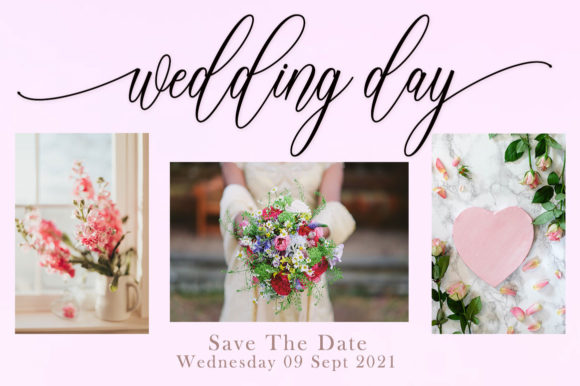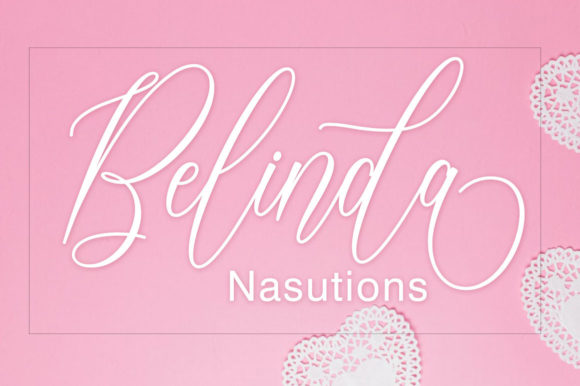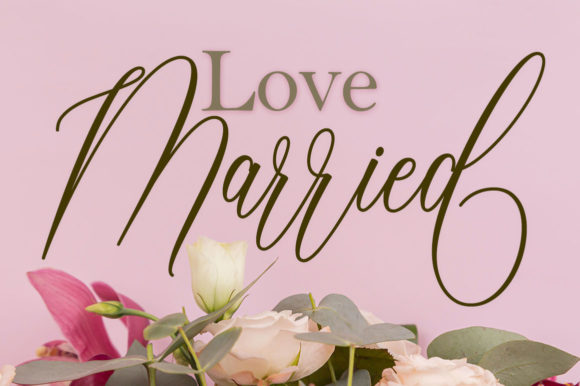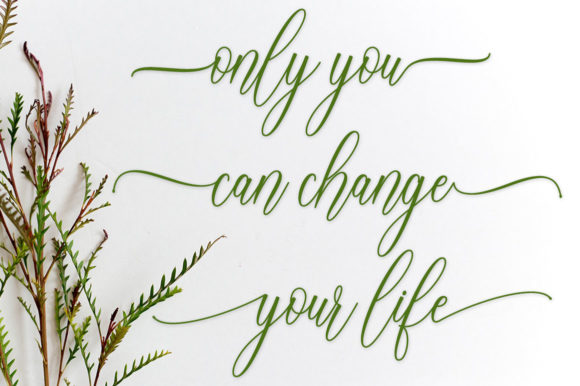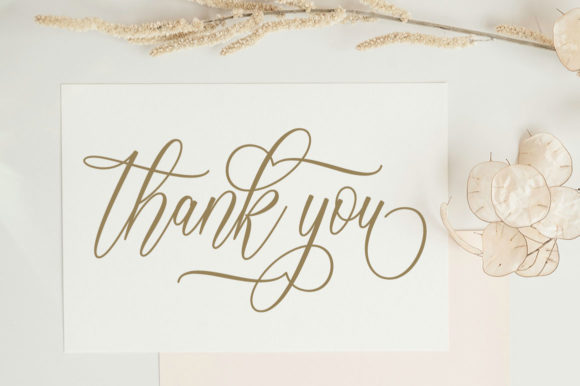
Introduction to Other Santiago Font Font
Fonts play a crucial role in design, and the Other Santiago Font font is a typeface that brings both character and versatility to any project. Whether you’re working on a branding project, a website, or a print design, the Other Santiago Font font offers a unique style that can elevate your work.
Other Santiago is a thin lettered and graceful script font.
Fall for its ravishing style and use it to create gorgeous wedding invitations, beautiful stationary art, eye-catching social media posts, and much more This font is PUA encoded which means you can access all glyphs and swashes with ease.
Key Features of Other Santiago Font Font
Why Choose Other Santiago Font Font?
The Other Santiago Font font is more than just a typeface – it’s a design tool that helps you communicate your message with style and clarity. Its unique character set and versatile design make it suitable for a wide range of applications, from elegant invitations to bold headlines.
With its carefully crafted letterforms and balanced proportions, the Other Santiago Font font ensures readability and visual appeal across all mediums.
What makes Other Santiago Font font special?
The Other Santiago Font font stands out with its unique design, exceptional readability, and versatility across various design applications.